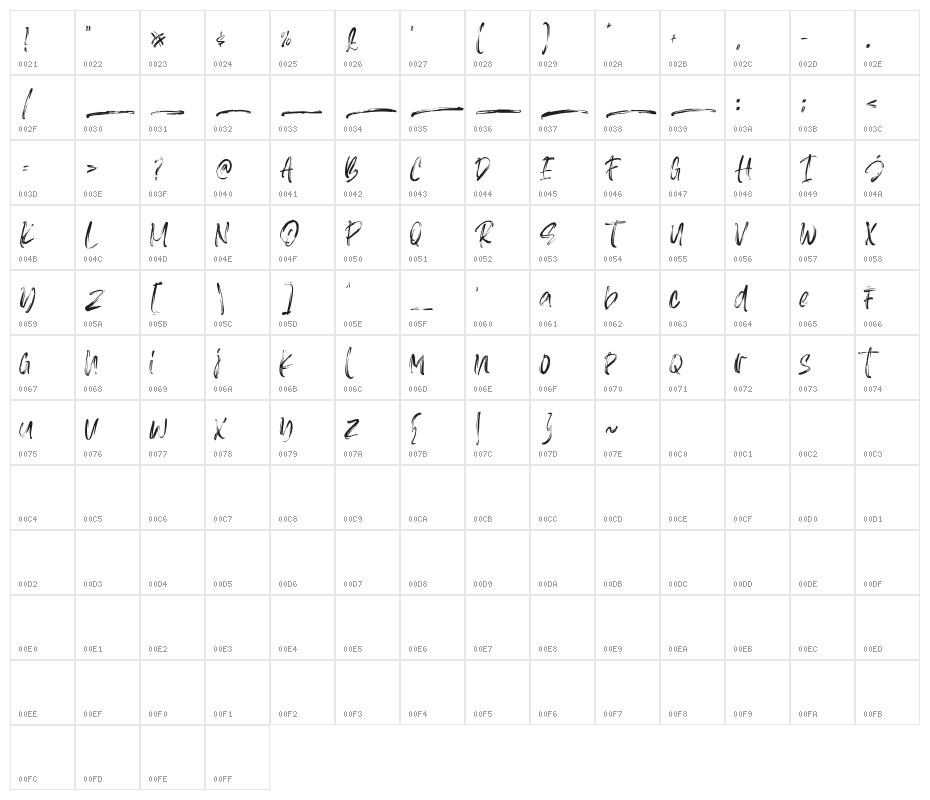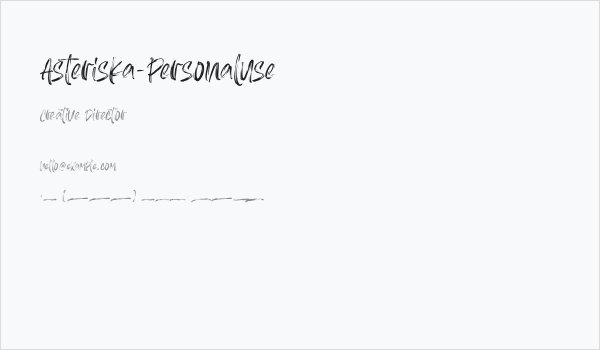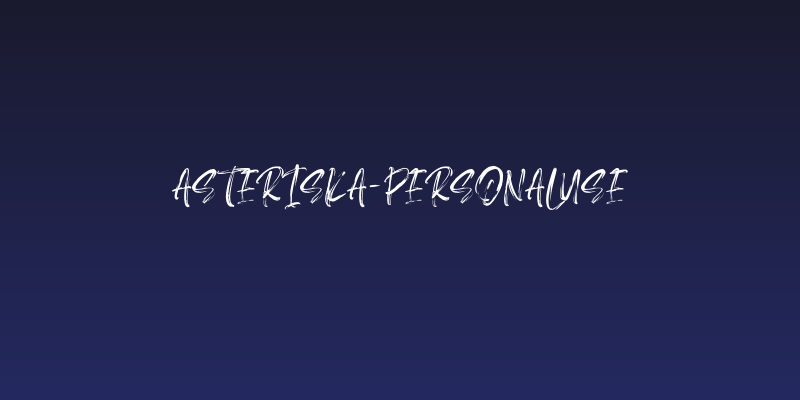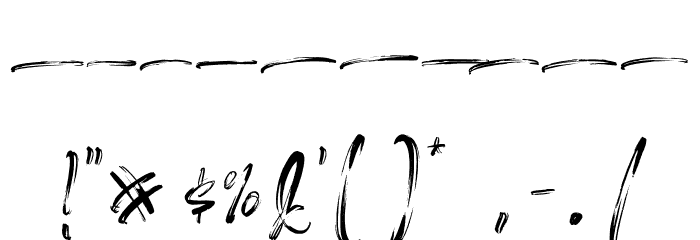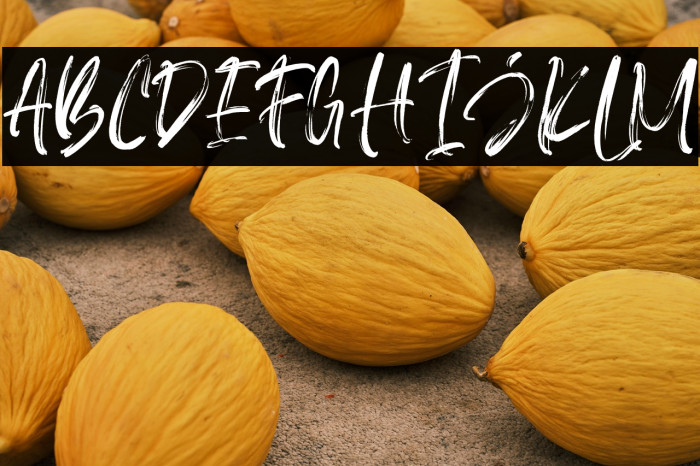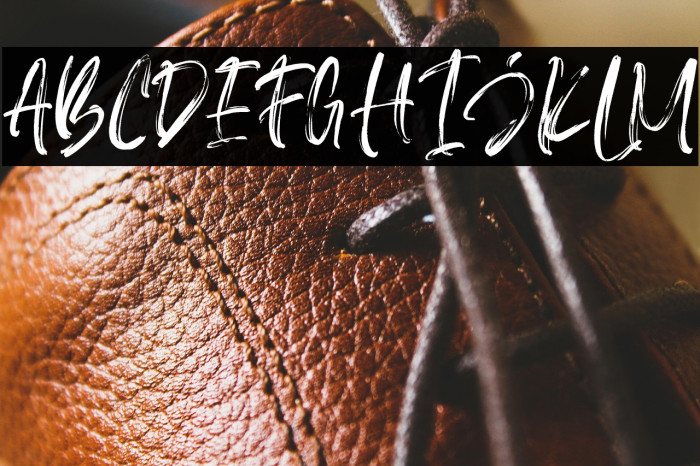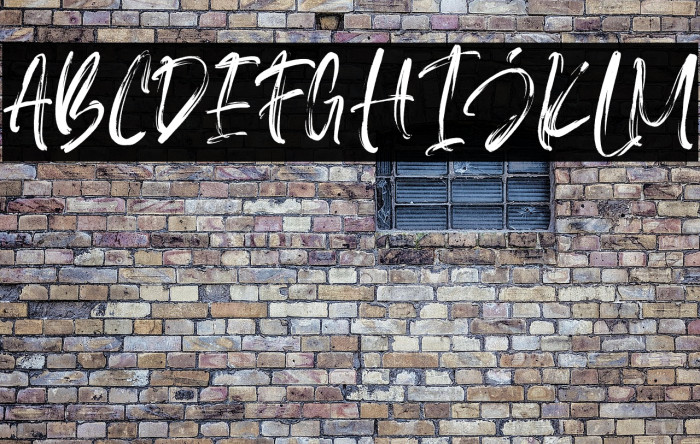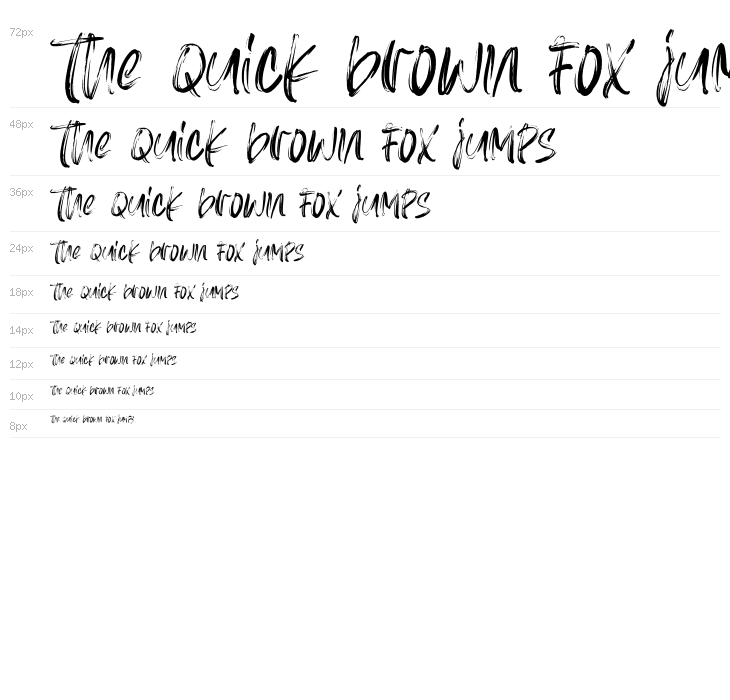
Asteriska-PersonalUse Font
Asteriska-PersonalUse Description
This font features a dynamic and expressive brush script style, characterized by its bold and energetic strokes. The letters appear as if they were painted with a brush, giving them a lively and artistic flair. The uppercase and lowercase letters maintain a consistent flow, with varying stroke widths that add to the font's vibrant personality. The special characters and numbers follow the same brush-like aesthetic, ensuring a cohesive look across all glyphs. This font is perfect for projects that require a touch of creativity and movement, such as artistic posters, branding, or any design that aims to capture attention with its bold and unique style.
| Use Case | Logos, Headlines, Artistic designs |
| Proposed Projects | Ideal for artistic posters, branding, and designs needing a creative flair. |